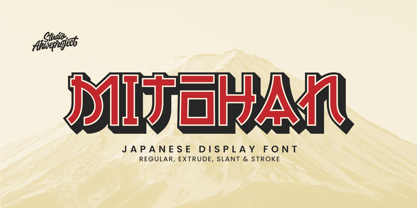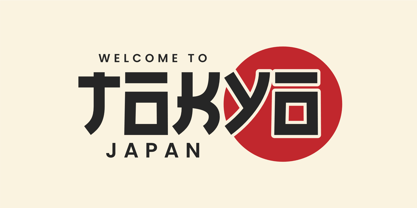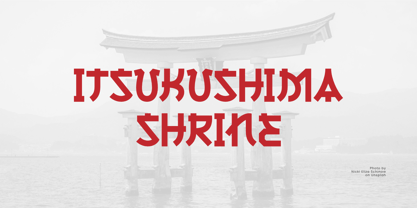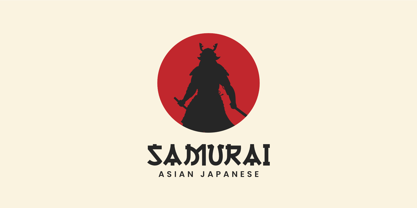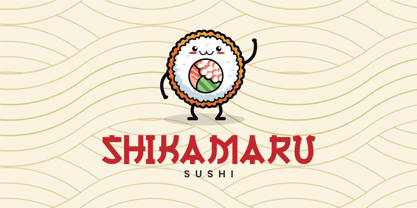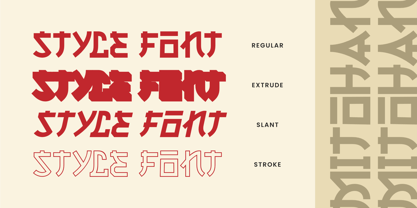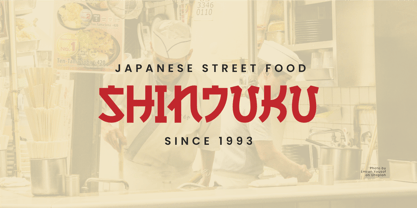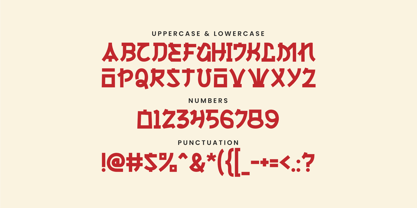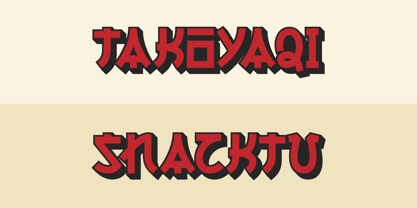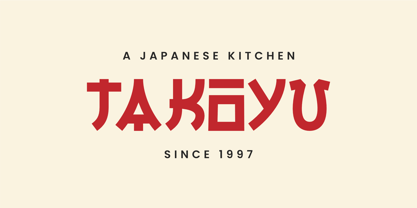
Mitohan
by ahweproject
The Mitohan Font Family was designed by Dida Ahluddin and published by ahweproject. Mitohan contains 4 styles and family package options. More about this family
Bring the spirit of Japan into your designs with Mitohan – a unique display font inspired by traditional Japanese aesthetics fused with a modern twist. Perfect for eye-catching projects such as posters, branding, apparel, logos, food packaging, and anything with an Asian flair. With bold letterforms, geometric Japanese-style elements, and a retro-futuristic touch, Mitohan comes in 4 styles: Regular, Extrude, Slant, and Stroke – offering flexibility and striking visual depth to every word. Features: -- All caps with a modern Japanese vibe -- Numbers and punctuation -- 4 versatile styles (Regular, Extrude, Slant, Stroke) -- Perfect for headlines, logos, and bold statements -- Compatible with all major design software -- Multilingual -- PUA encoded We strongly recommend using applications that support Opentype Features and Glyphs panels such as Adobe Apps and Corel Draw. So you can see and access all the variations of Glyphs. Make your designs stand out with the bold and expressive style of Mitohan. It’s time to go bold. It’s time to go Mitohan! Happy Design!